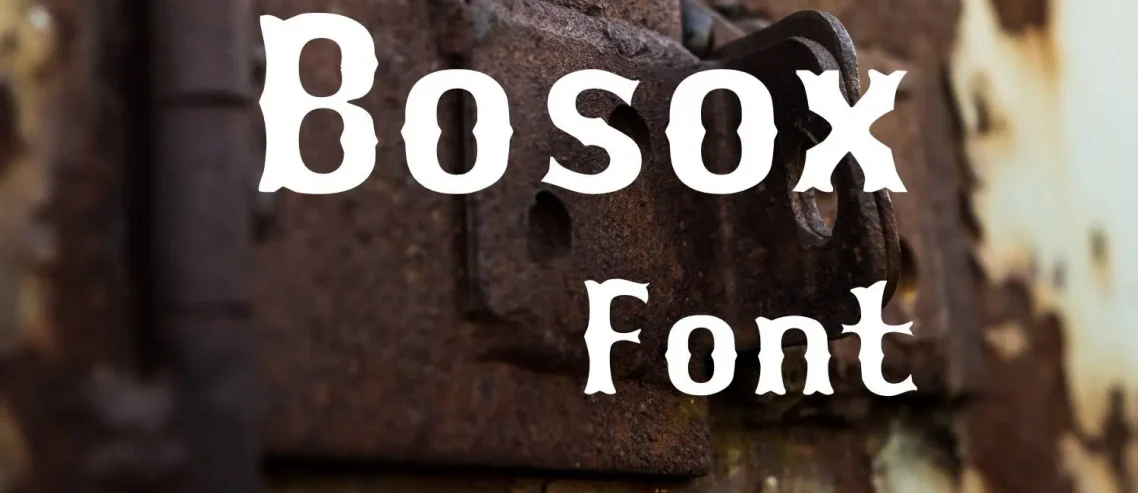
Bosox Font was created by American designer Brian Bonislawsky and was published by his type foundry, Astigmatic One Eye Typographics in 2006. It can be downloaded for free from the Astigmatic website. This typeface has a retro style and includes uppercase and lowercase letters, numbers, and punctuation.
View of Bosox Font